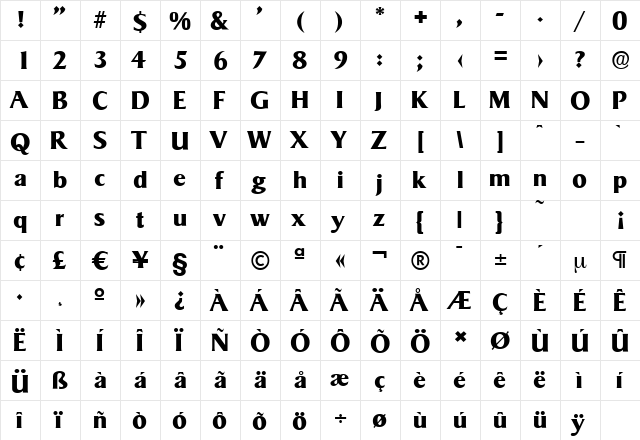
SigvarSerial-Xbold Regular
Design Context for SigvarSerial-Xbold Typeface
SigvarSerial-Xbold takes a measured approach to typography — its balanced proportions and neutral character make it a reliable workhorse for both digital and print work. The heavy weight commands attention and anchors typographic hierarchies.